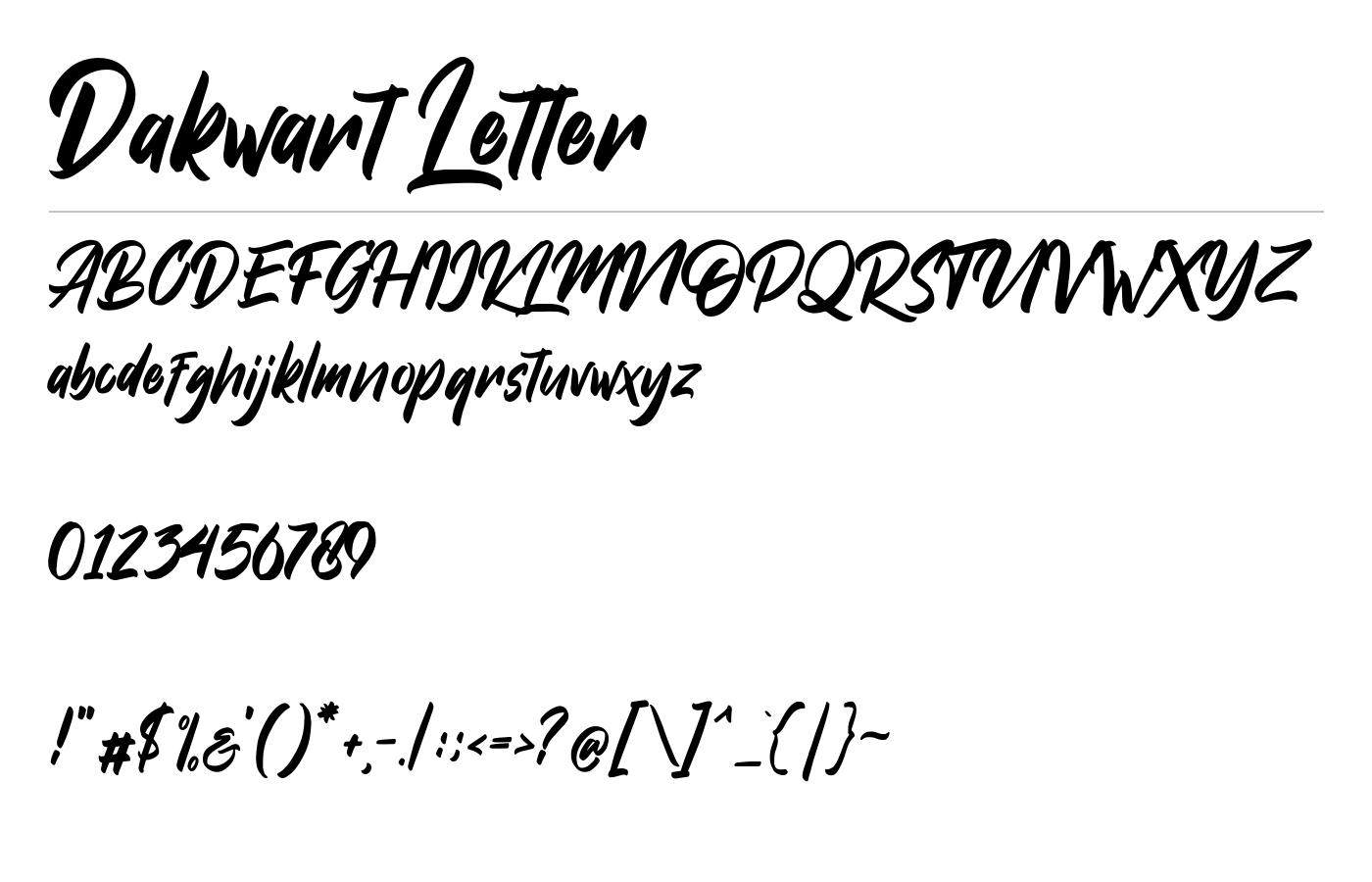
Dakwart Letter is a bold, energetic script font that features fluid, brush-like strokes with a lively, hand-drawn character. Its dynamic letterforms and moderate contrast create a modern yet casual feel, making it ideal for eye-catching headlines, logos, and creative branding that aim to convey personality and warmth. This font works beautifully in designs that want to stand out with a friendly, artistic touch.
Dakwart Letter
About Dakwart Letter
| Font family | Dakwart Letter |